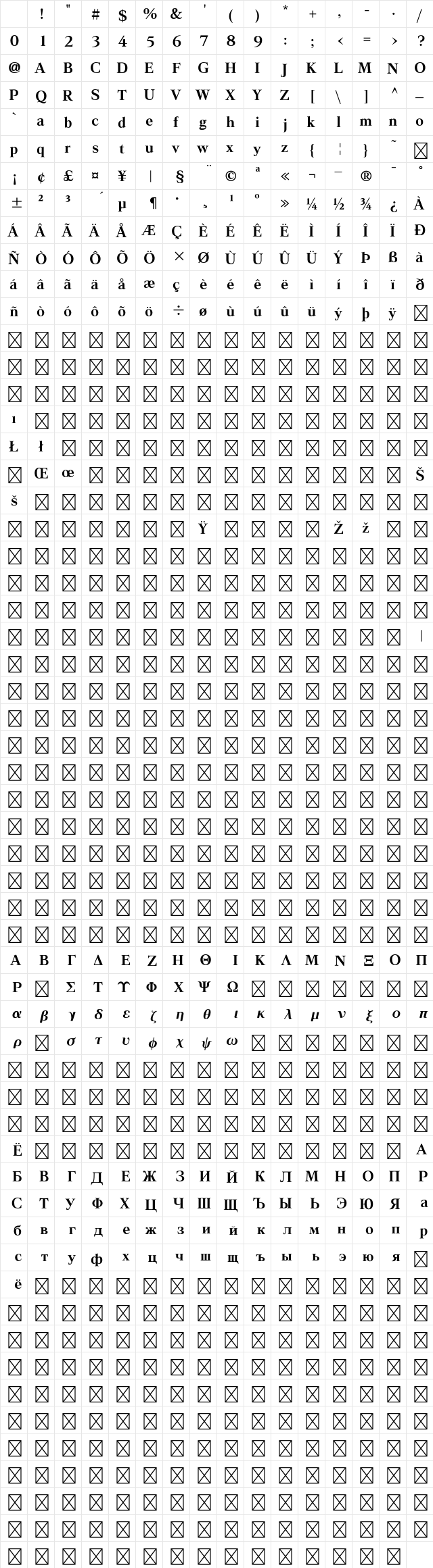
Complete FOT-Greco Std B glyph index. Displaying only characters natively supported by FOT-Greco Std B font.
FOT-Greco Std is a composed and adaptable typeface that performs quietly and consistently across a wide range of design contexts.